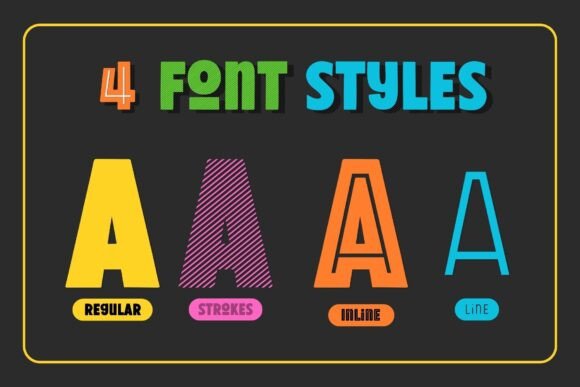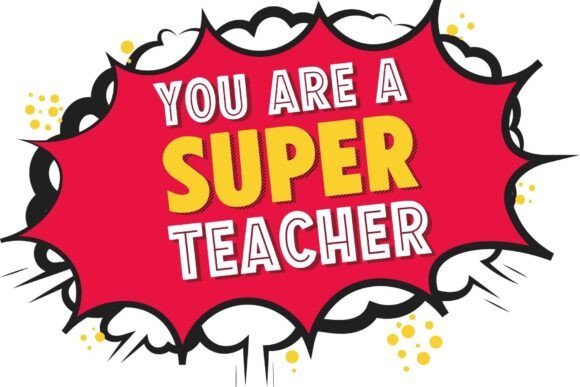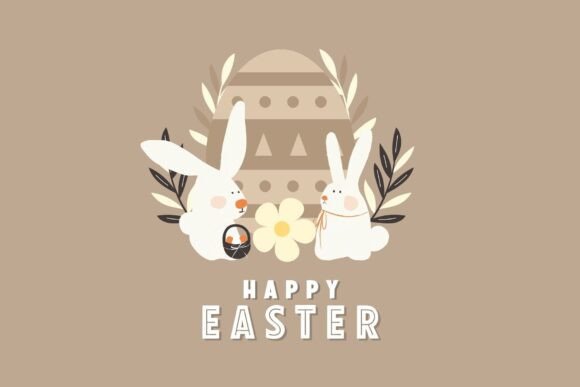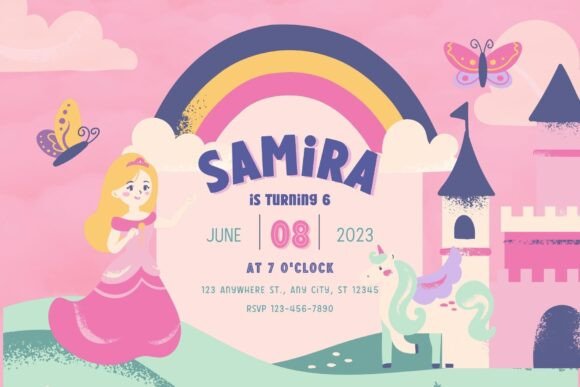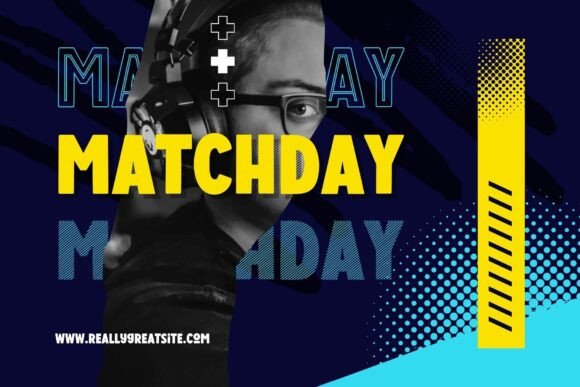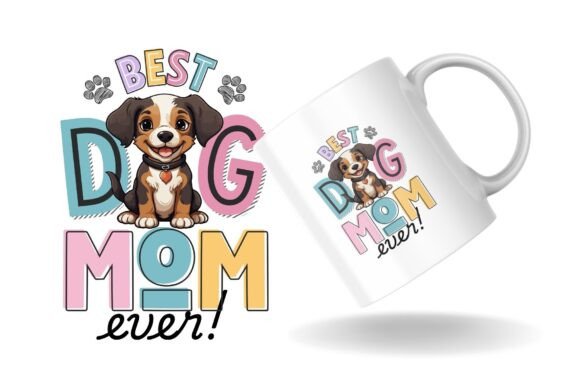
Introduction to Fox Felix Font
Fox Felix is a playful and vibrant display font perfect for adding a splash of color and fun to your designs.
With its bold, retro-inspired letterforms and unique textures, this font stands out in any project Fox Felix offers 4 versatile styles.
Key Features of Fox Felix Font